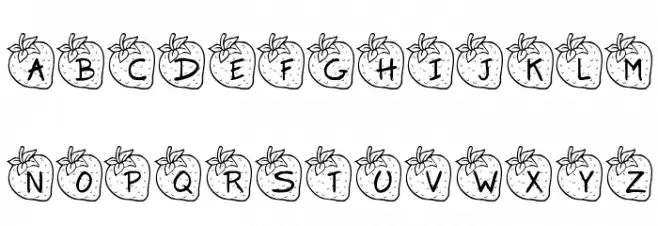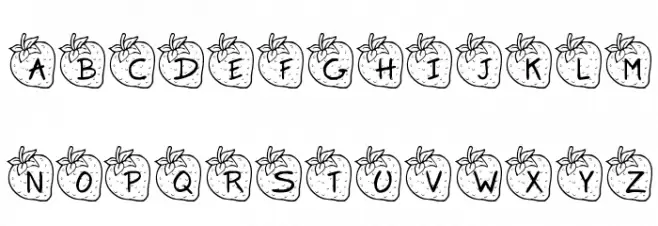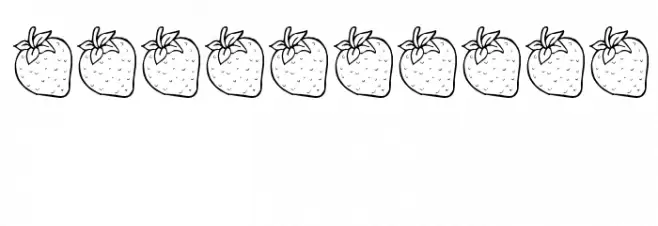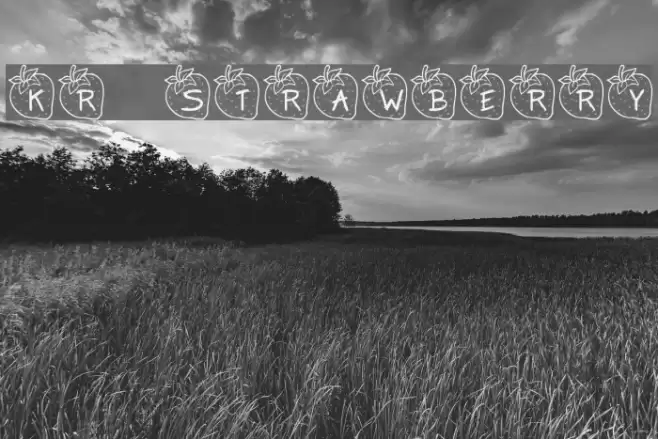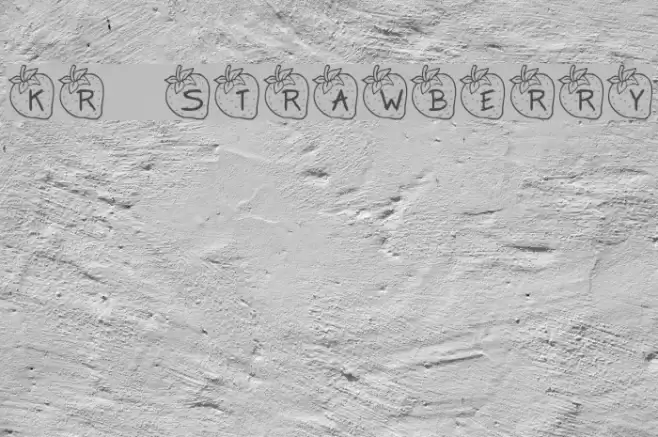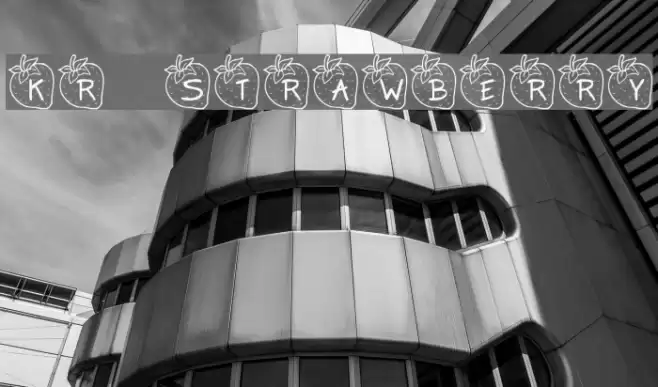
KR Strawberry Font
KR Strawberry Description
This playful and decorative font features each letter encased within a hand-drawn strawberry illustration. The letters are uppercase and have a whimsical, childlike quality, making them perfect for creative and fun projects. The strawberries are detailed with seeds and leaves, adding a touch of nature-inspired charm. The overall design is unique and eye-catching, ideal for projects that require a touch of whimsy and creativity. The font does not include lowercase letters, numbers, or special characters, focusing solely on the uppercase alphabet.
A whimsical, decorative font with uppercase letters inside hand-drawn strawberries.
- Proposed Projects: Ideal for children's book covers, playful greeting cards, or summer-themed event posters.